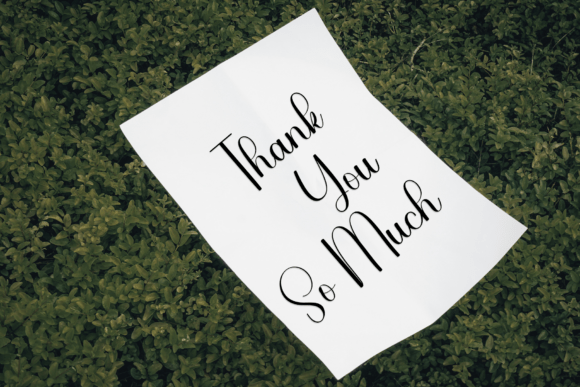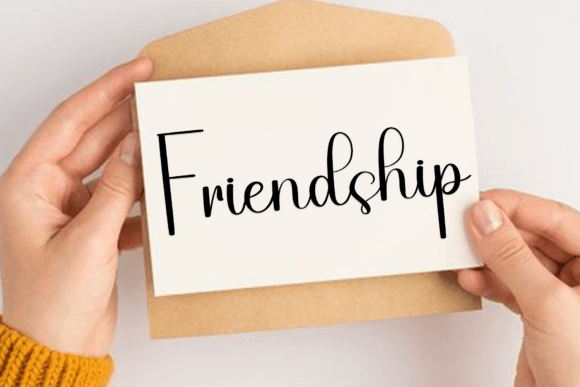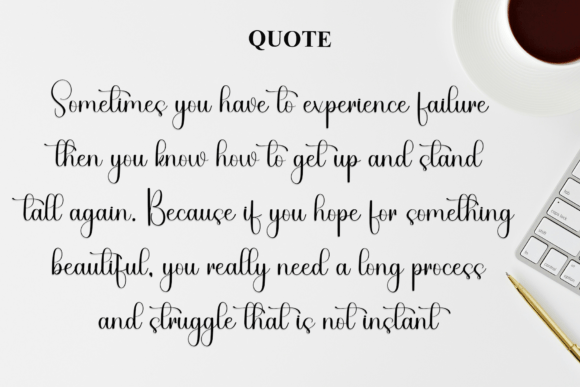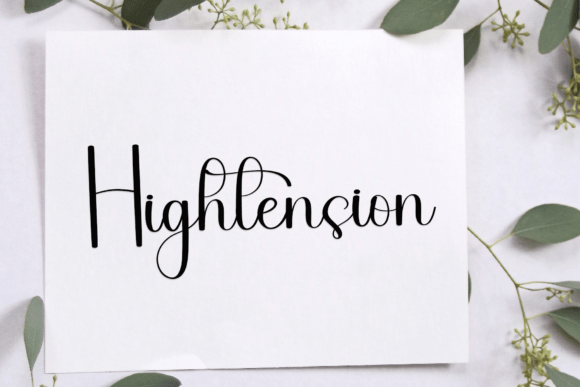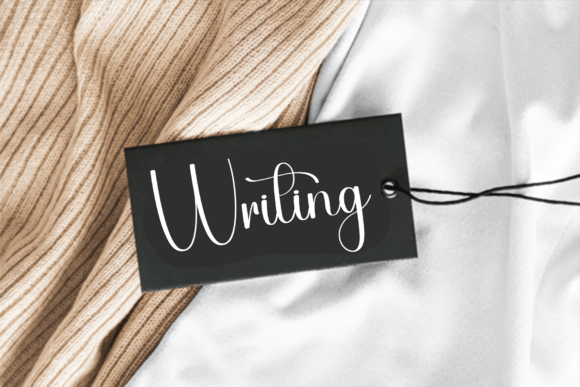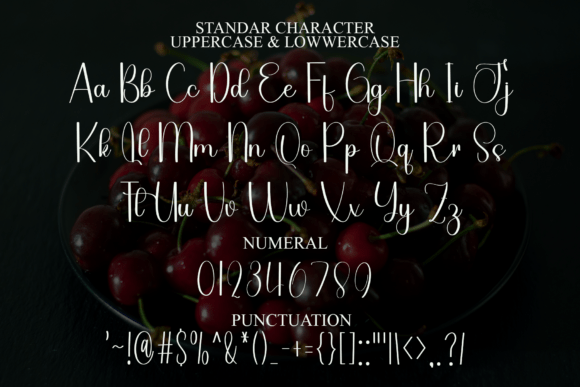
Have you ever stared at a blank page, trying to come up with the perfect design for a personal project or social media post, only to feel overwhelmed by the endless options of fonts available? I know I have. That’s why I’m excited to introduce you to the Belgia Autography Font, a casual and creative font that exudes warmth and friendliness.
This charming font is designed to add a fun and unique touch to any design, making it perfect for personal projects, invitations, and social media graphics. Its round, playful strokes create a relaxed and approachable feel that’s sure to engage your audience. With its standard PUA Encoded glyphs, the Belgia Autography Font is easily accessible in various application engines, including Adobe Photoshop, Corel, and Adobe Illustrator.
Belgia Autography Font Key Features
- Font Family: Belgia Autography Font is a calligraphy font family, ideal for handwritten and signature styles.
- Character Set: The font includes a wide range of characters, including uppercase and lowercase letters, numbers, and punctuation marks, making it suitable for various applications.
- Unique Characteristics: Belgia Autography Font features a unique, handwritten style with subtle imperfections, giving it a personal and authentic touch, perfect for creative and artistic applications.
Designer Review: Belgia Autography Font
When I first stumbled upon the Belgia Autography Font, I was immediately drawn to its unique, handwritten feel. The font is perfect for those looking to add a touch of elegance and sophistication to their designs. ✨ The cursive script is fluid and smooth, making it ideal for use in invitations, quotes, and other text-heavy projects.
One of the things I love about Belgia Autography Font is its versatility. It can be used in a variety of settings, from formal events to casual gatherings. The font also comes in multiple weights, allowing designers to customize their look and feel. ✨ Additionally, the font’s ligatures and swashes add an extra layer of visual interest and make it stand out from other fonts.
- ⚠️ The font may be difficult to read for those with vision impairments due to its cursive nature.
- ⚠️ The font’s weight options may not be suitable for all design projects, especially those requiring a bold or sans-serif look.
- ⚠️ The font’s ligatures and swashes may not be compatible with all font rendering engines, leading to inconsistent results.
Overall, I’m impressed with the Belgia Autography Font’s unique features and versatility. While it may have some limitations, it’s a great addition to any designer’s toolkit. With proper usage and consideration, this font is sure to elevate any design project.
Getting the Most Out of the Belgia Autography Font
To get the most out of the Belgia Autography Font, consider the following tips:
- Use the font in conjunction with other decorative elements to create a unique design aesthetic.
- Experiment with different font sizes and colors to add visual interest to your design.
- Use the font to create a cohesive brand identity across multiple design platforms.
The Belgia Autography Font is suitable for a variety of design applications, including:
- Event branding and marketing materials
Alternatives to Belgia Autography Font for Designers
Playfair Display is a luxurious, elegant script font ideal for high-end designs, such as luxury branding, magazines, and invitations. It’s perfect for creating a sense of sophistication and refinement. Playfair Display is similar to Belgia Autography Font in its elegant and luxurious feel, but it has a more refined and classical look.